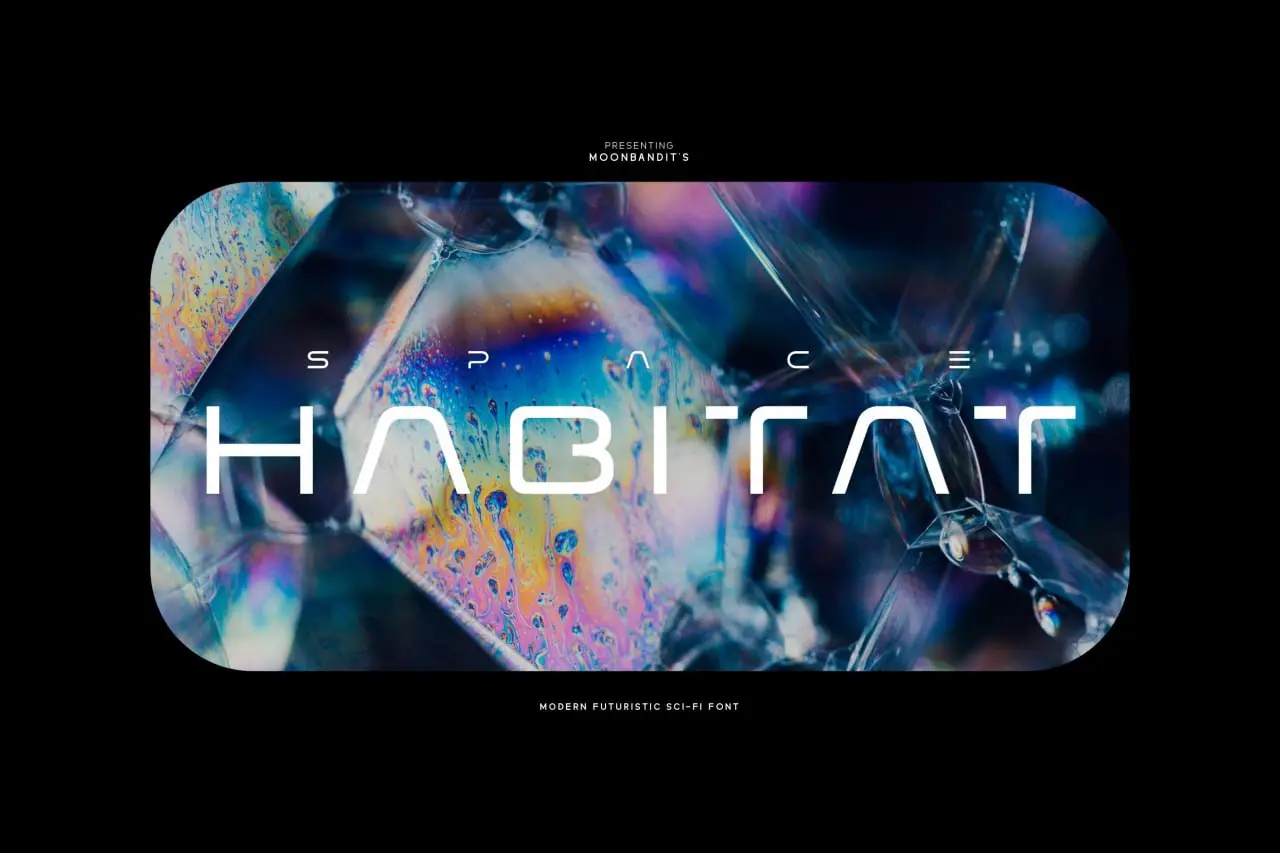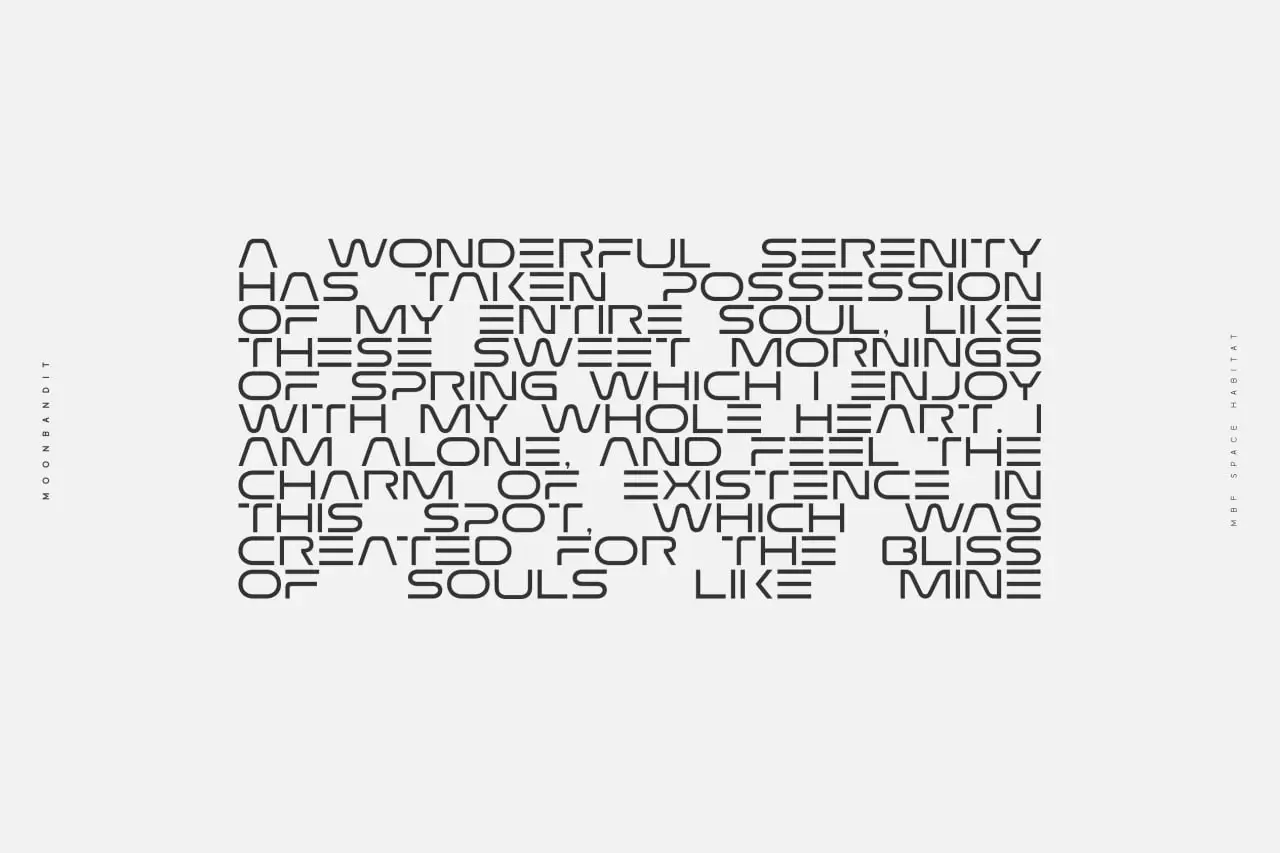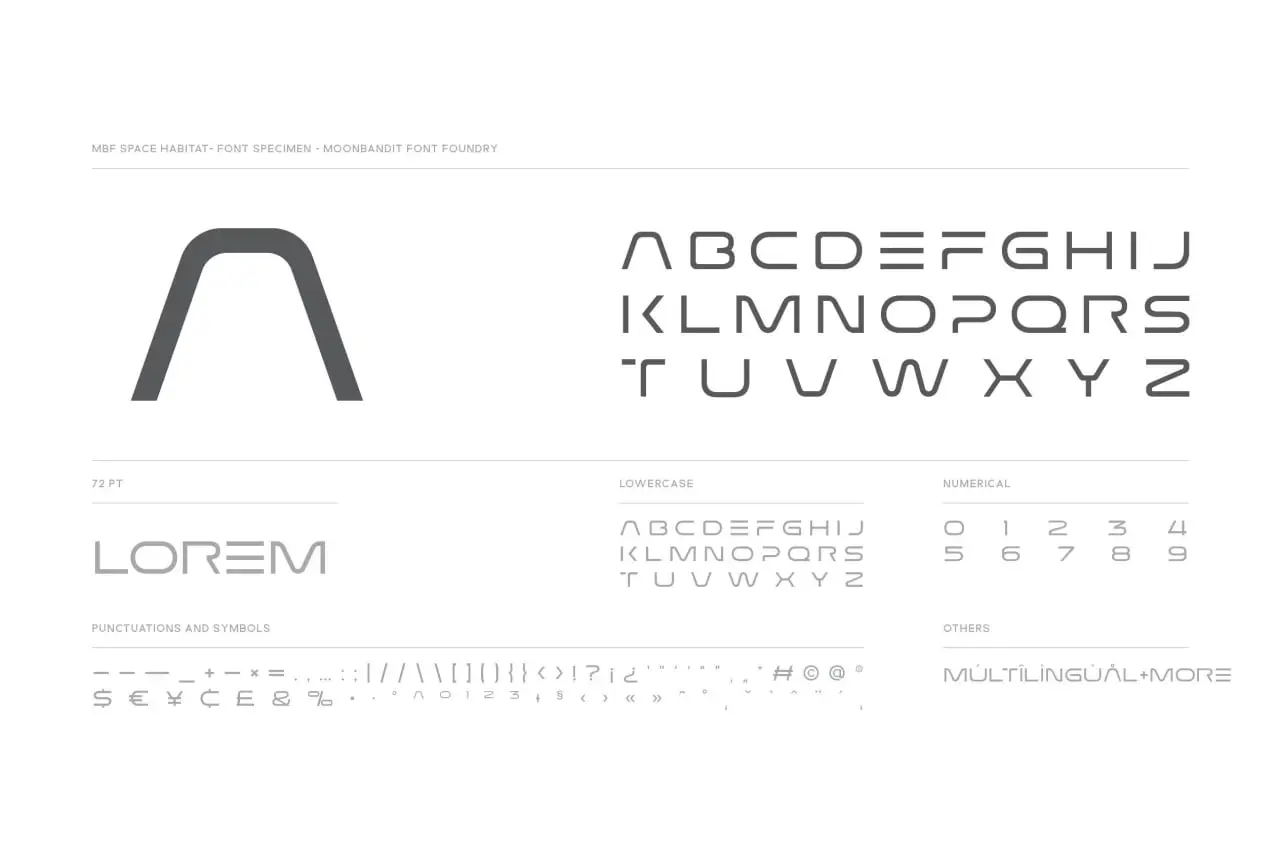
Mbf Space Habitat Font By Bramaji Dipa Manggala
The Mbf Space Habitat Font, crafted by Bramaji Dipa Manggala, is a unique typeface designed to evoke a sense of adventure and exploration. This font features a modern geometric style with clean lines and a futuristic aesthetic, making it ideal for a variety of creative projects.
• Geometric and modern design
• Numerals and special characters included